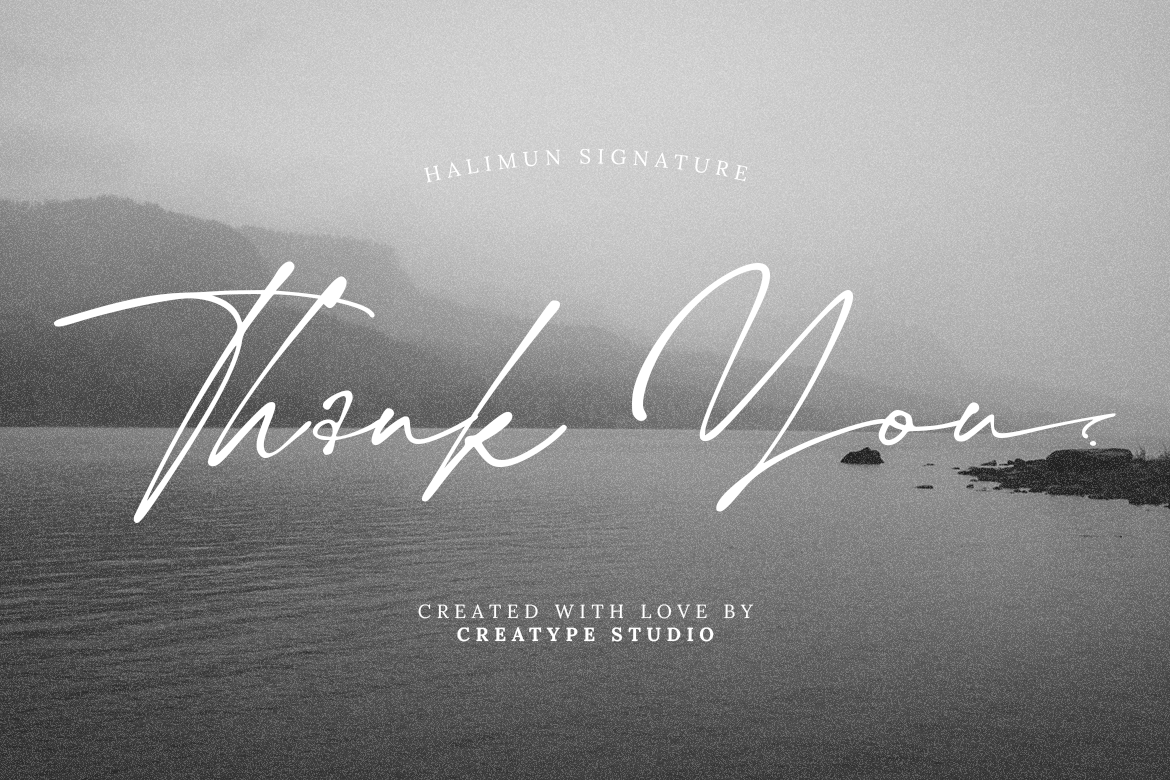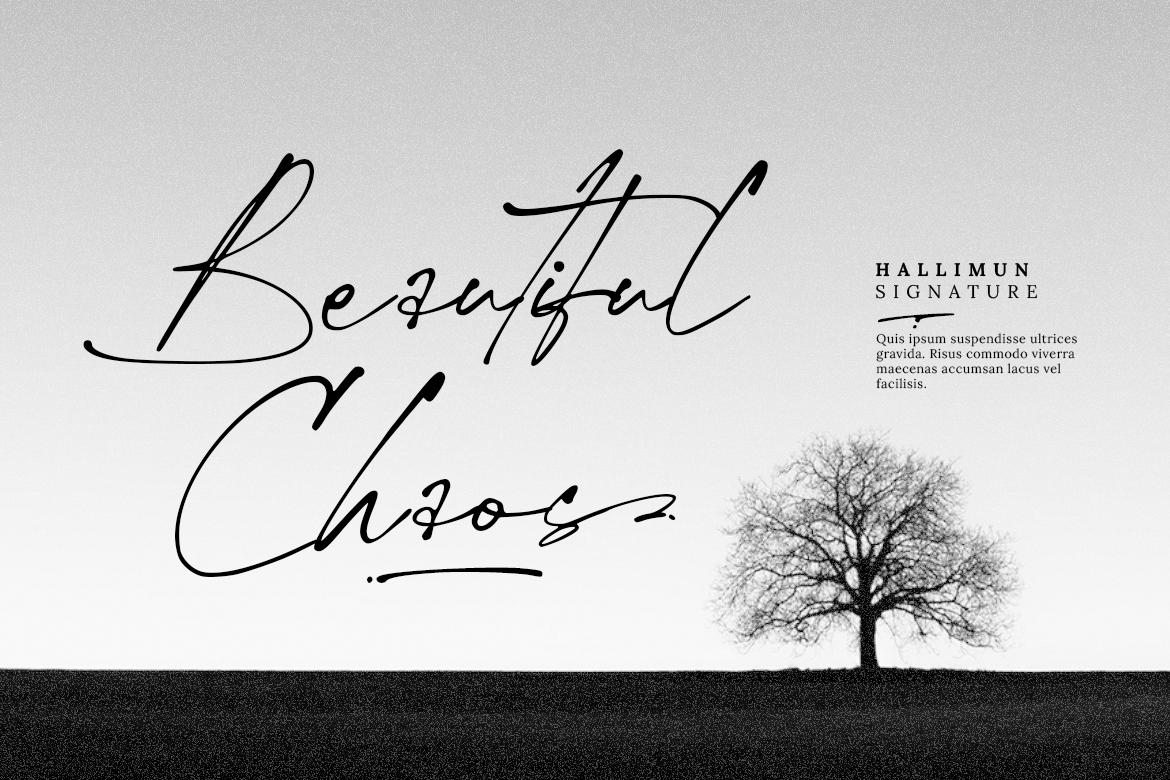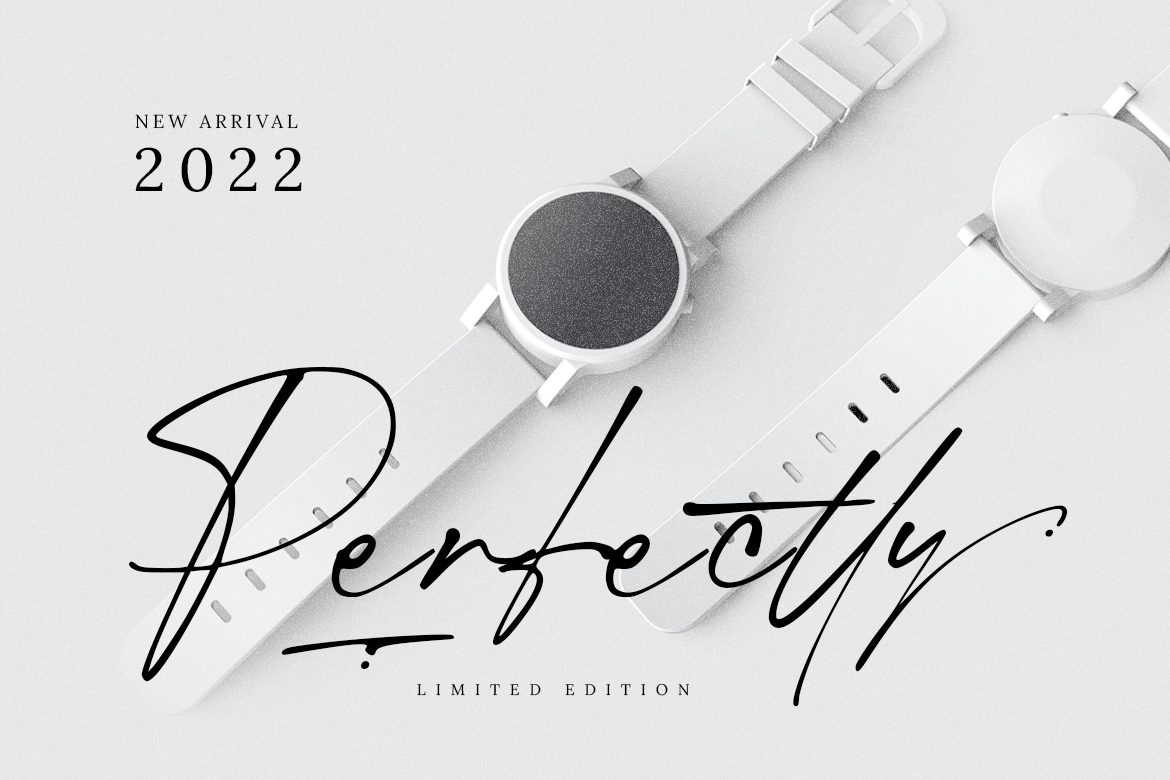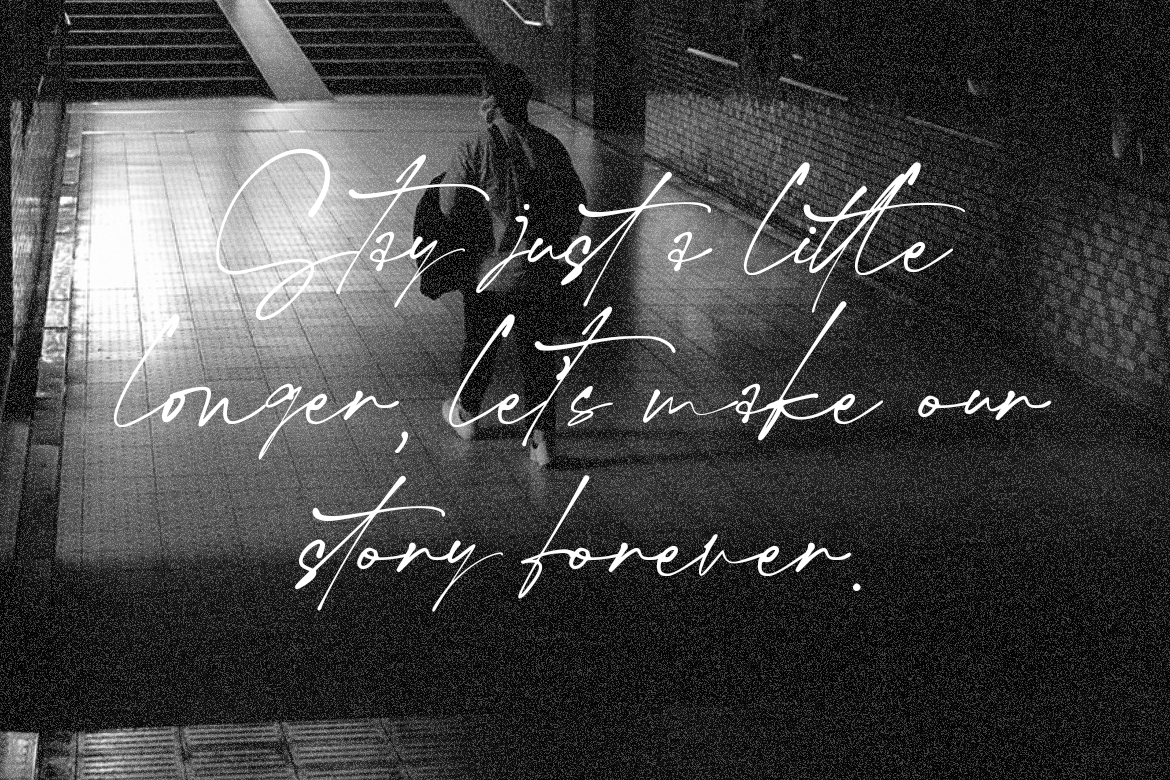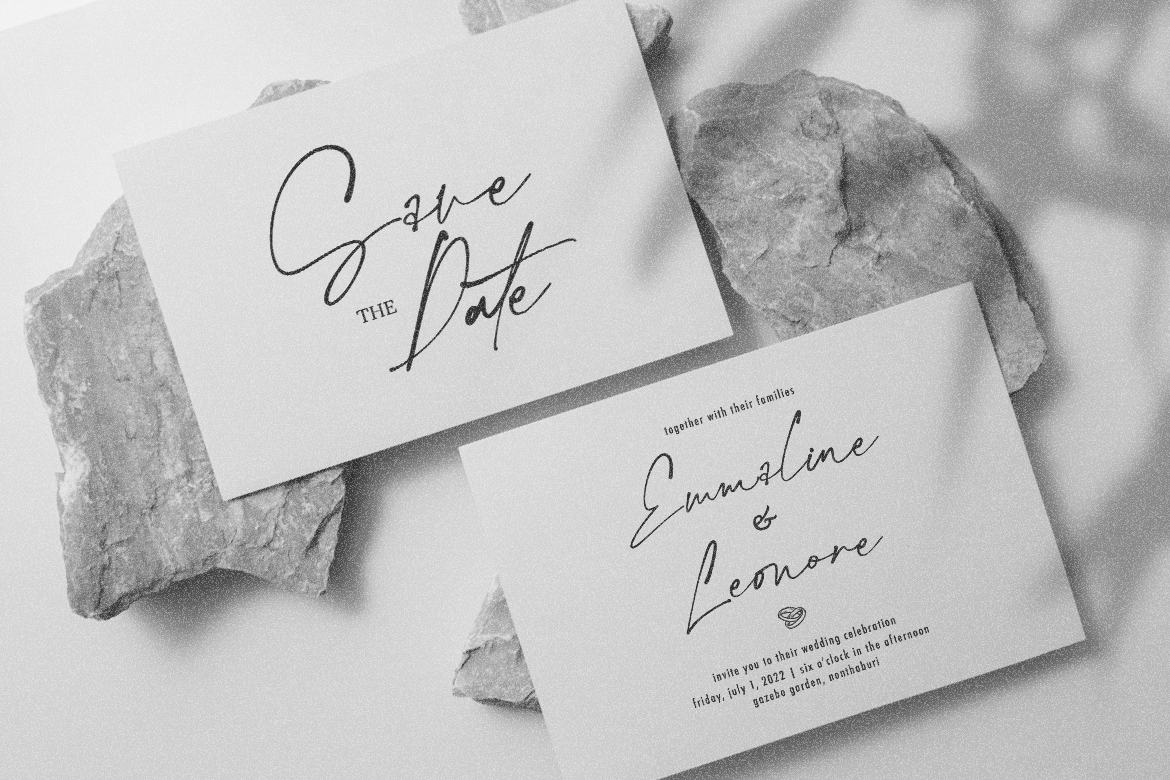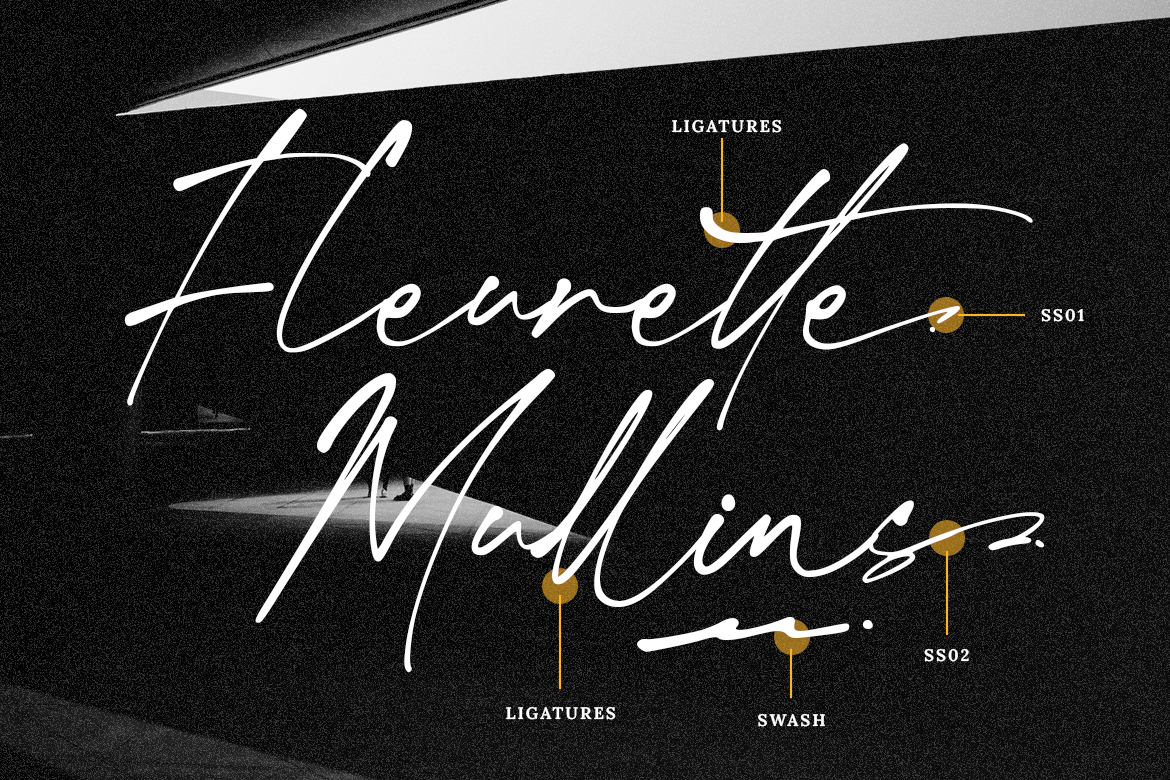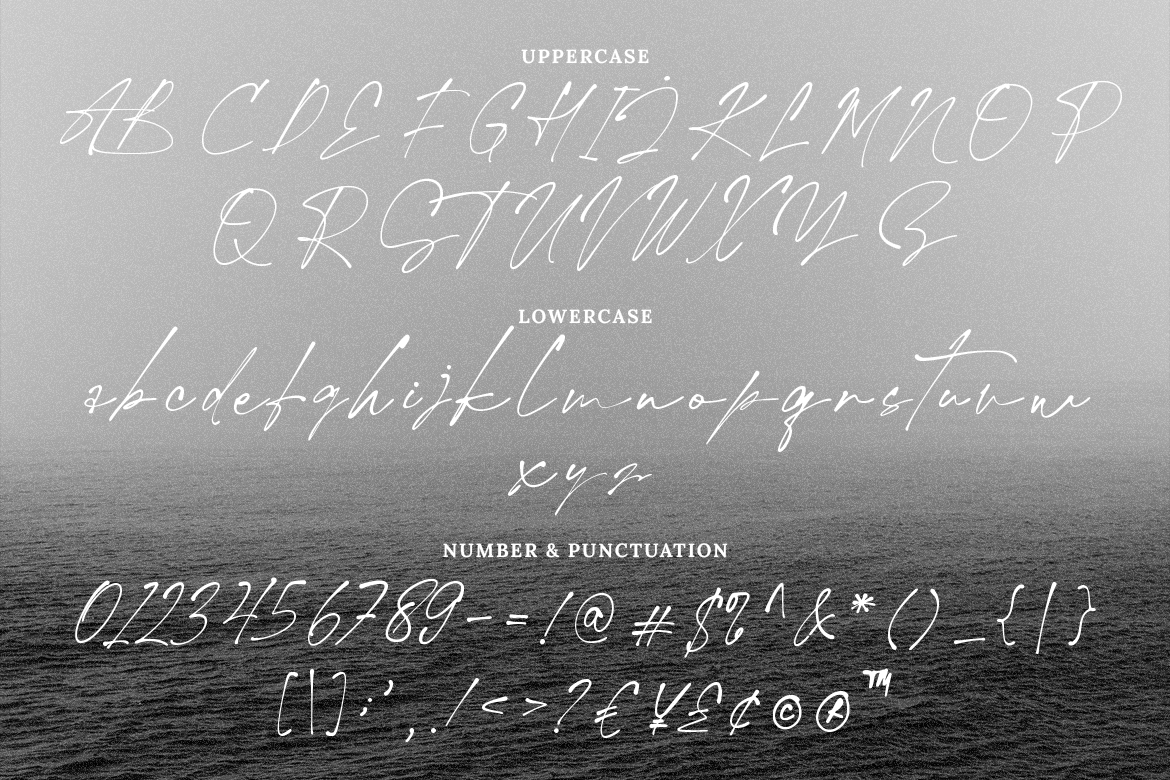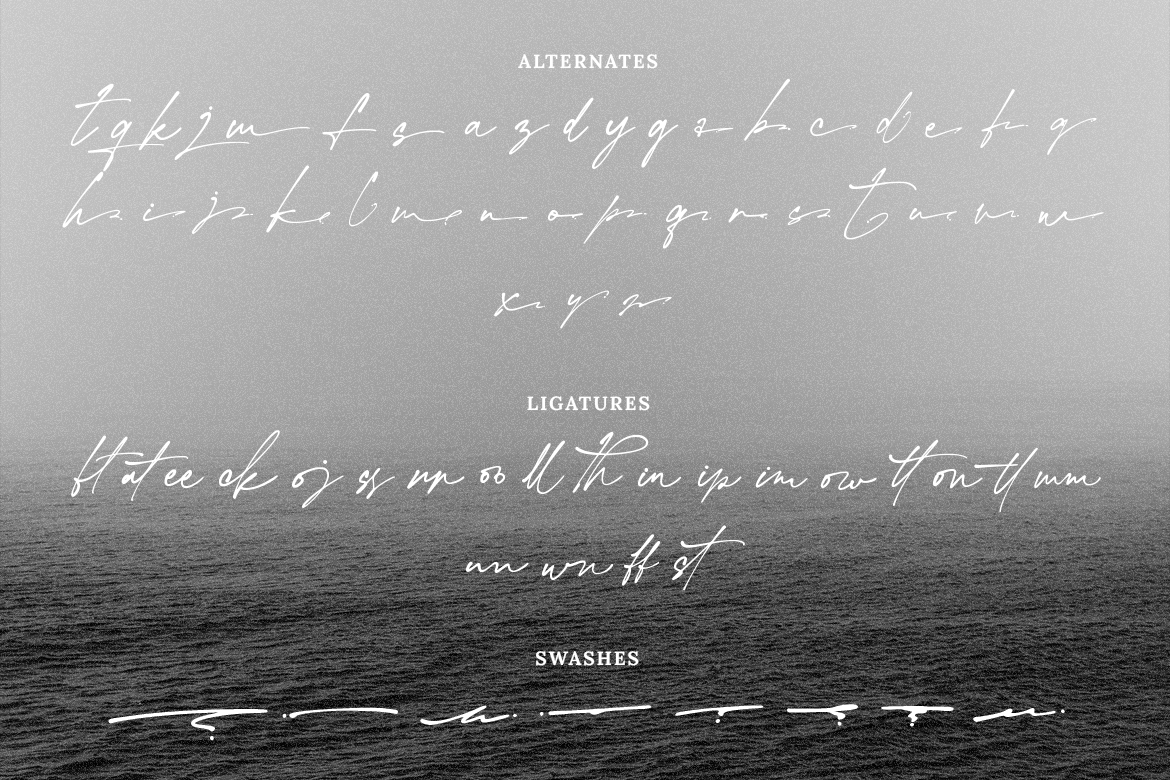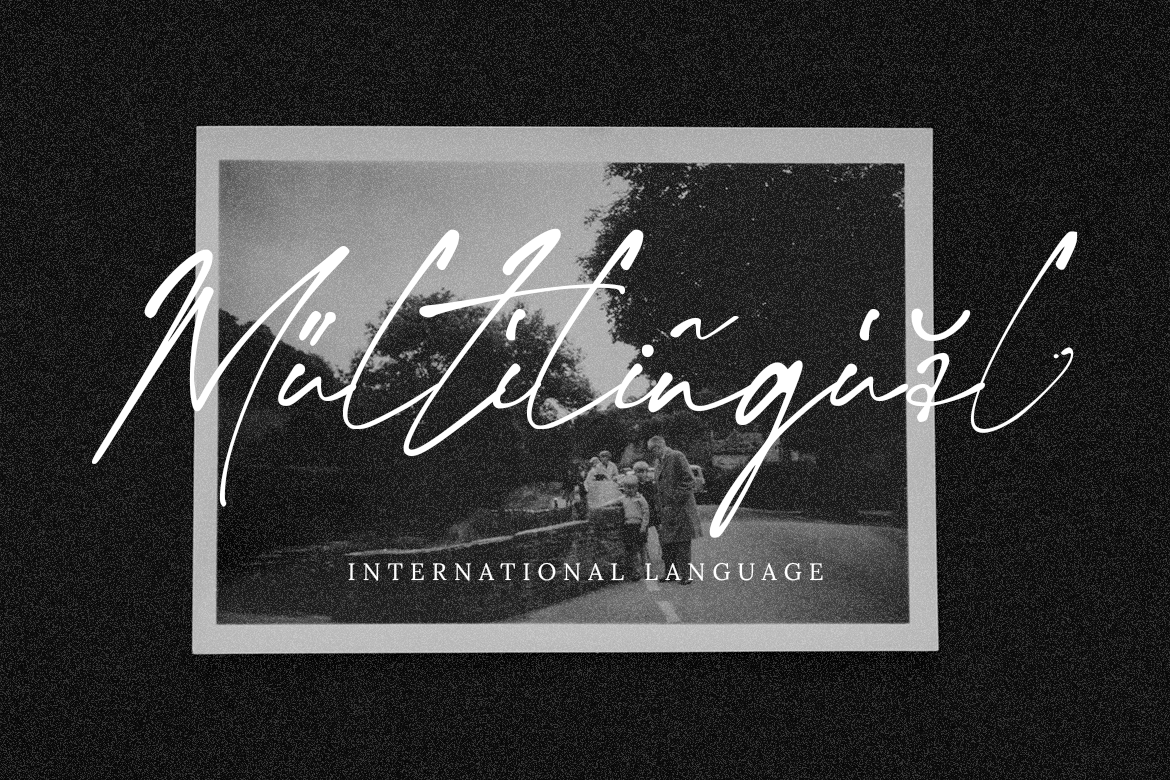
Hallimun Signature is a stylish typeface that has natural hand write looks. It gives a vintage and sophisticated vibe to your design project.
Hallimun Signature is perfect for branding projects, logo, wedding designs, social media posts, advertisements, product packaging, product designs, label, photography, watermark, invitation, stationery and any projects that need handwriting taste.
• Ton of glyphs
• Ligature & Alternate
Hallimun Signature Casual Script